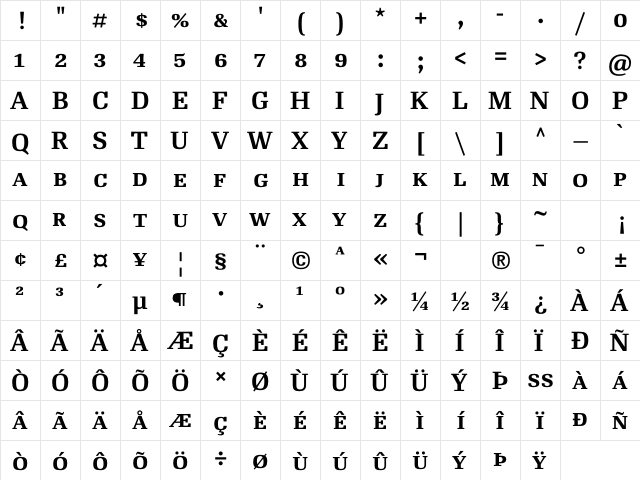
RePublic Book Bold SC Font Preview
RePublic Book Bold SC
RePublic Book Bold SC Font Details
| Style | Bold SC |
Design Context for RePublic Book Typeface
RePublic Book is a composed and adaptable typeface that performs quietly and consistently across a wide range of design contexts. Its bold stroke weight gives it real presence on the page.